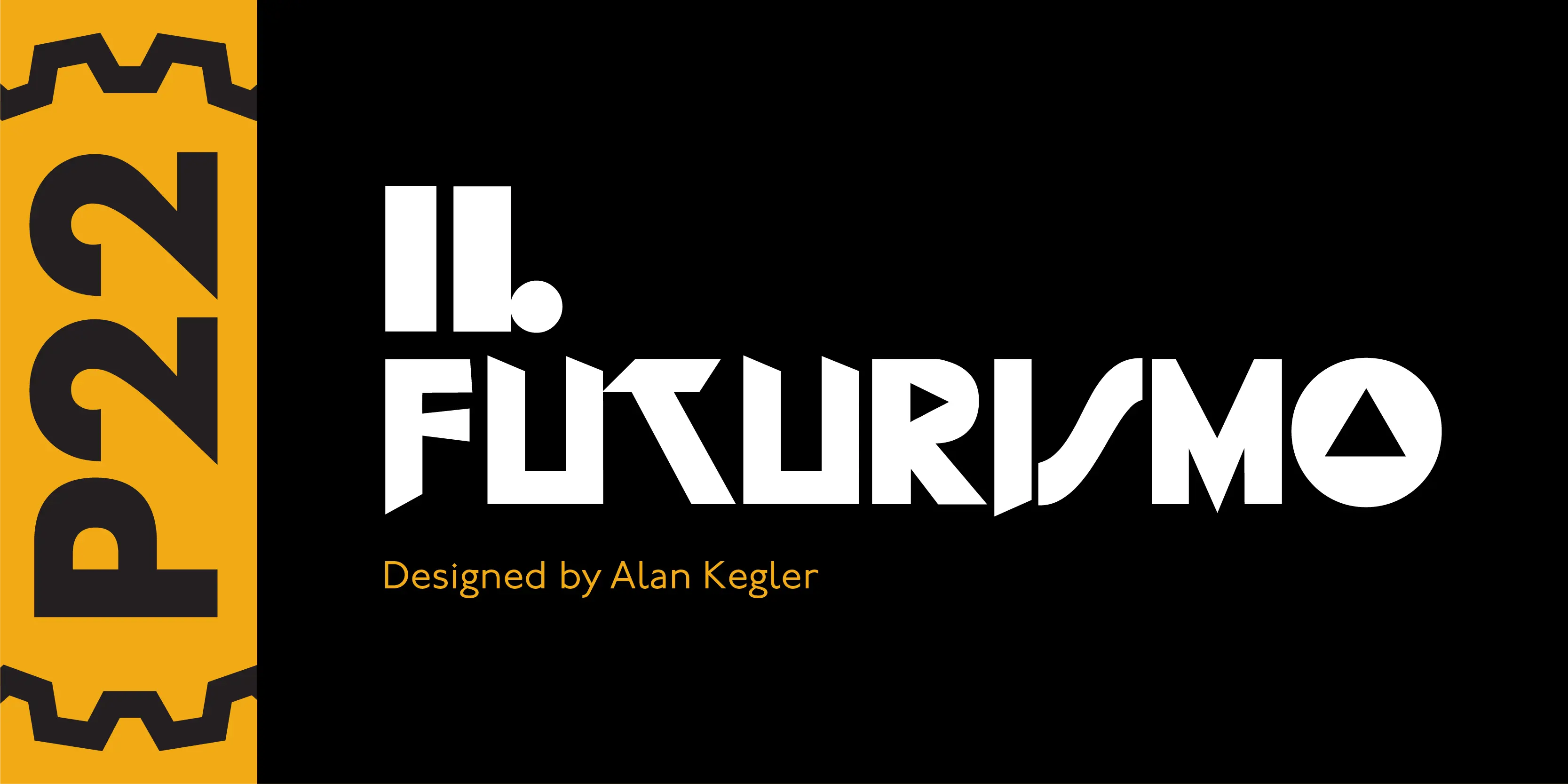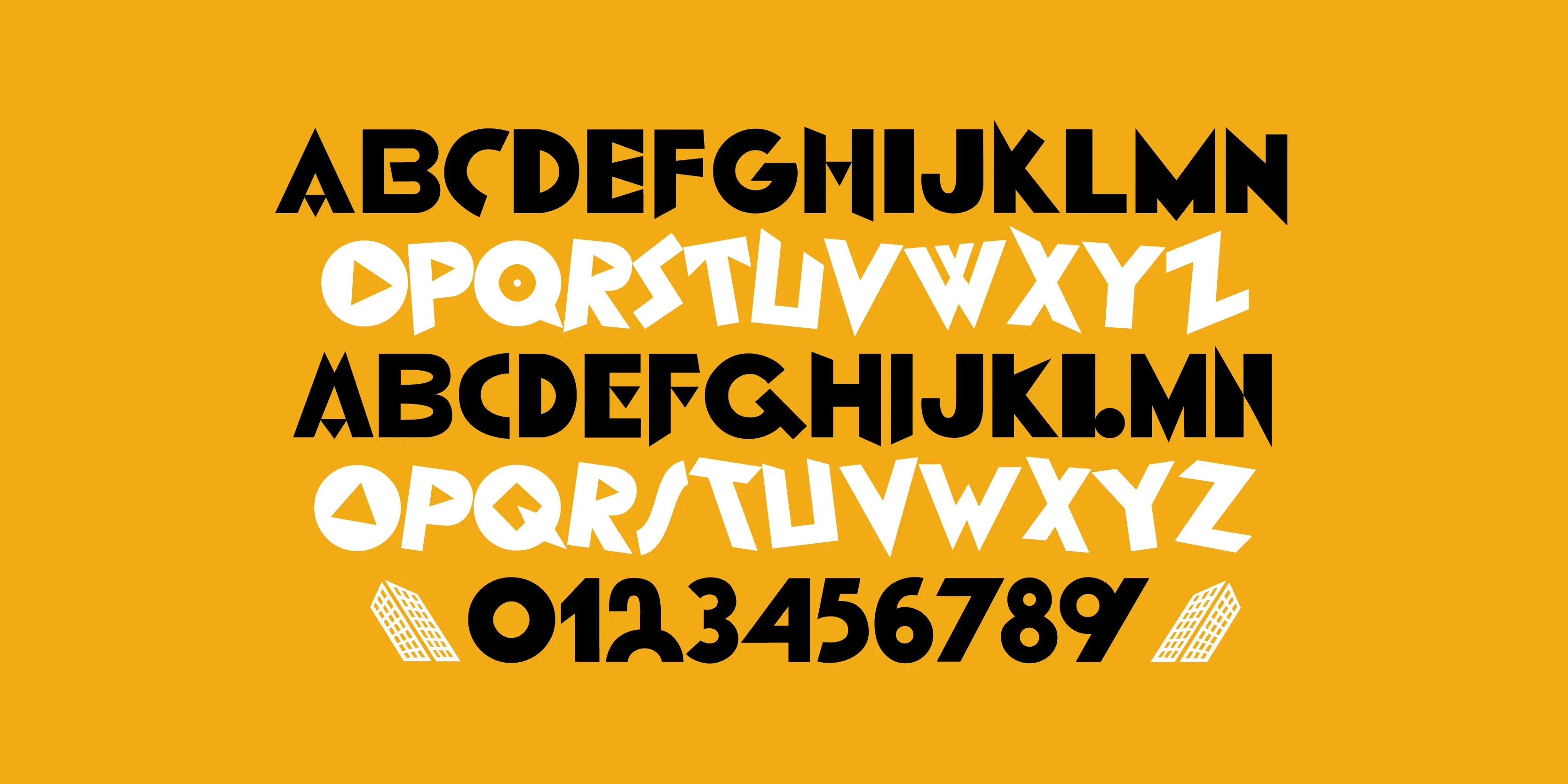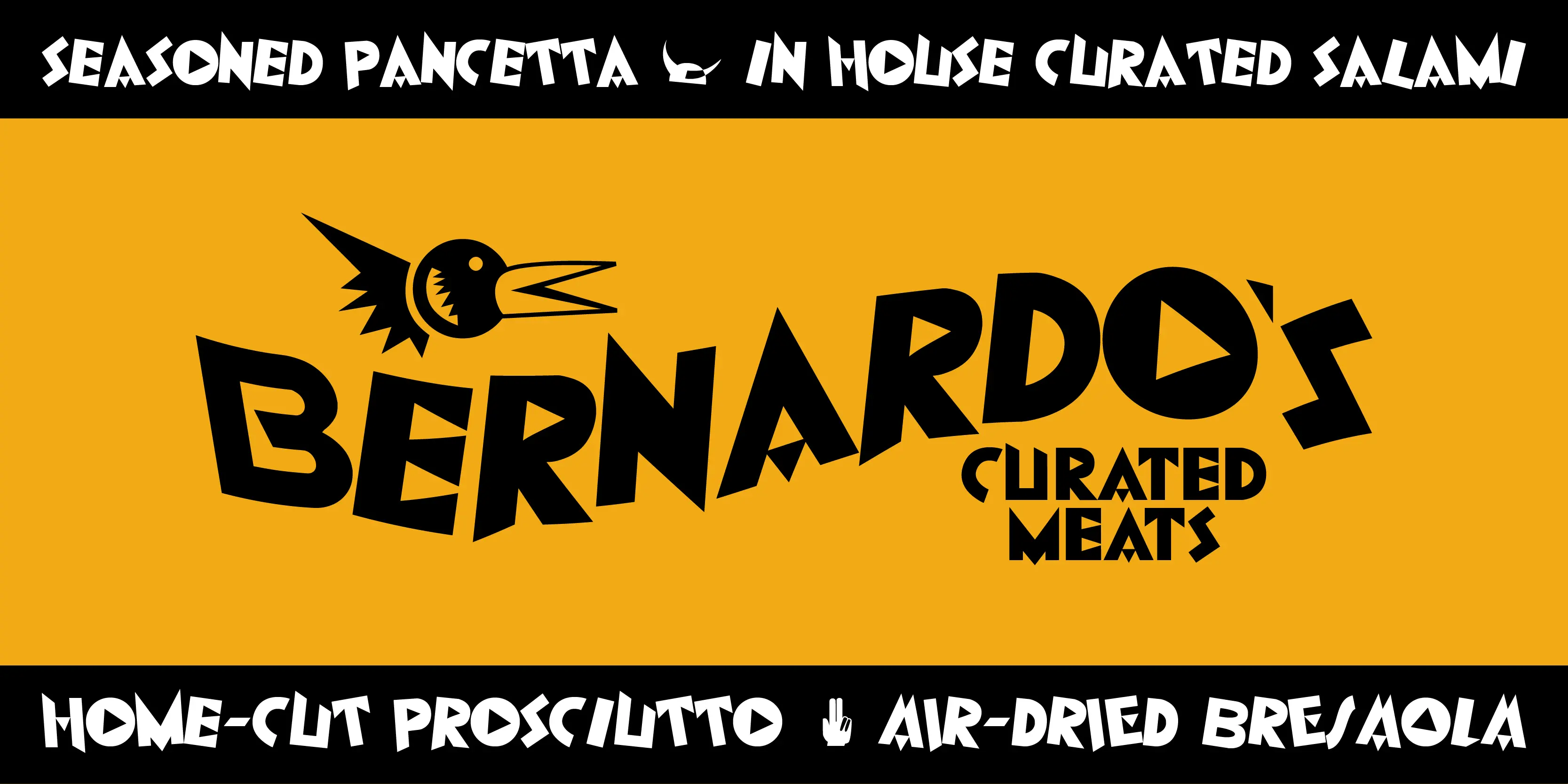
Il Futurismo Fonts
Il Futurismo Regular
Il Futurismo Velocita
Il Futurismo Extras
Il Futurismo
Italian Futurism (1908–43) was one of the 20th century’s first and most influential avant garde art movements. Futurist typography sought to disrupt traditional notions of harmony, space and composition on the printed page. The bold and jarring shapes of this set faithfully recall a tumultuous era in both Italian history and Italian graphic design.
- Common Ligatures
- Stylistic Alternates